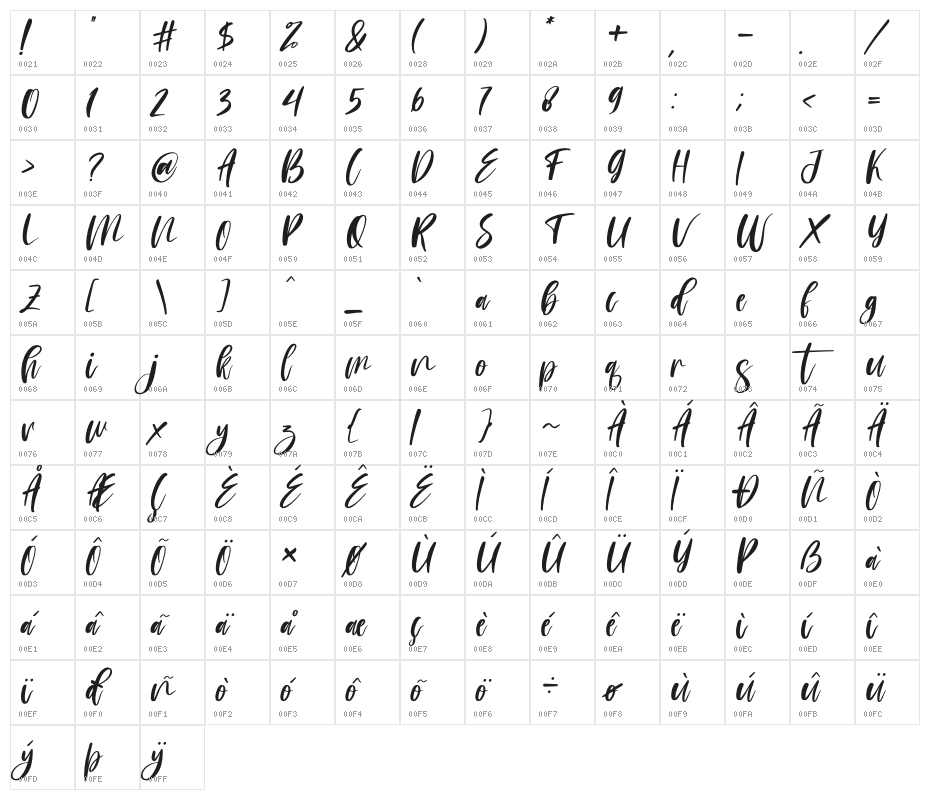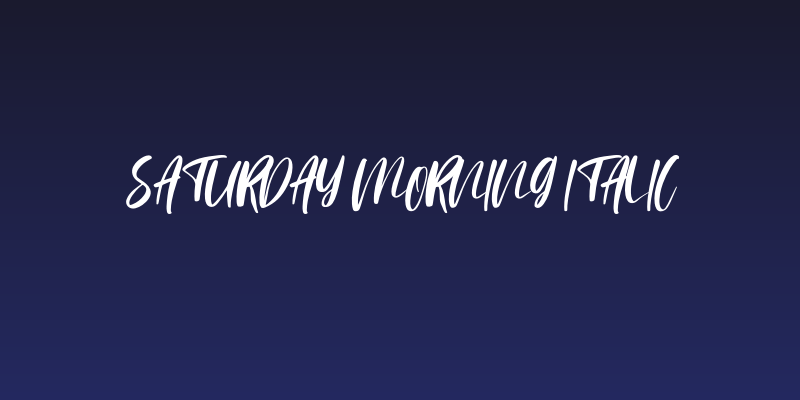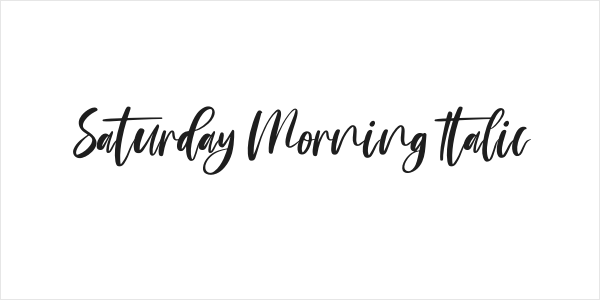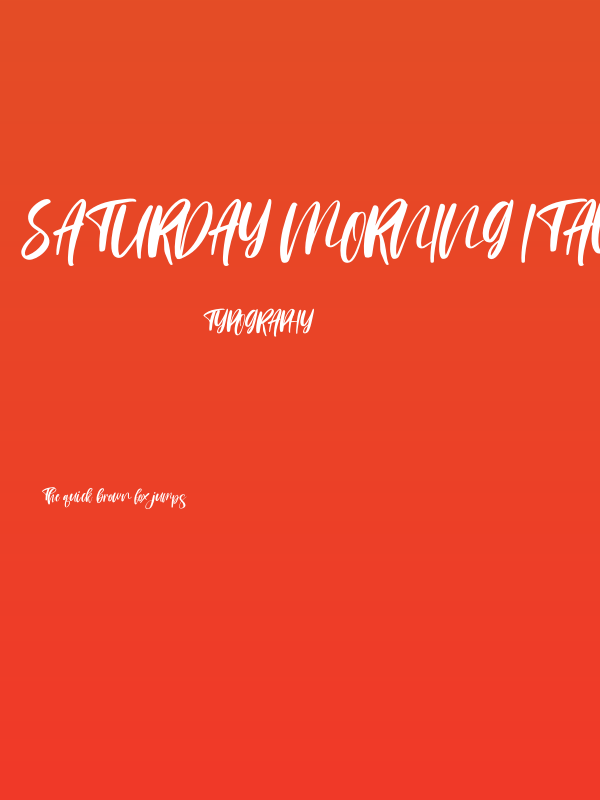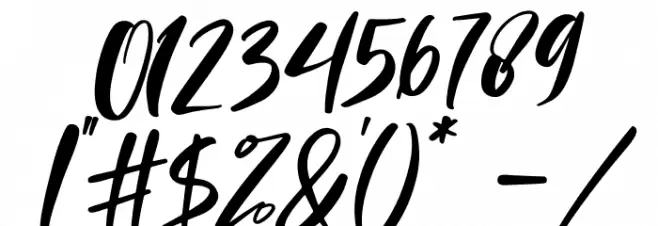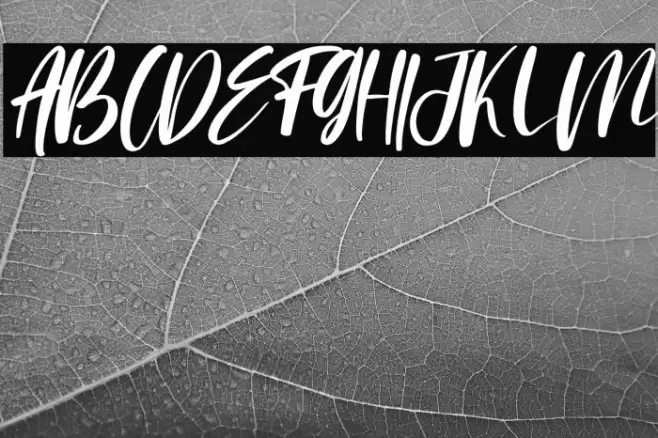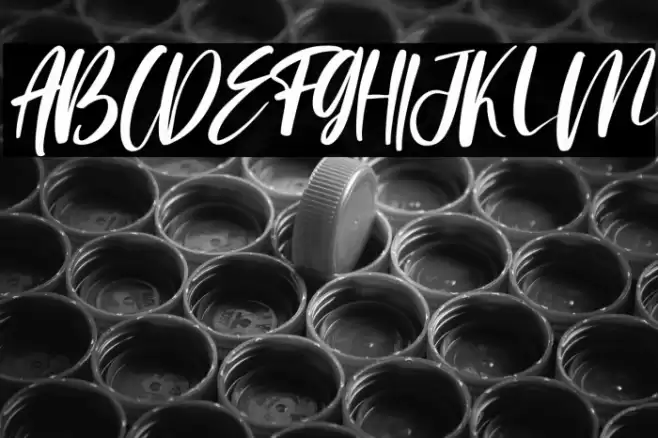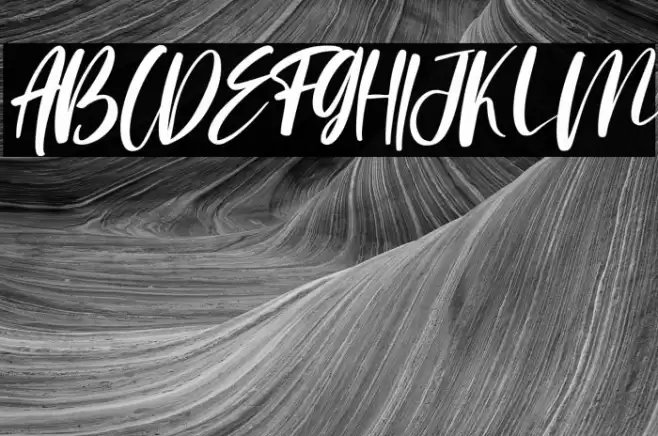
Saturday Morning Italic Font
This font exudes a lively and dynamic energy with its bold, sweeping strokes and fluid, cursive style. The letters are characterized by their dramatic slant and expressive curves, creating a sense of movement and spontaneity. The uppercase and lowercase letters maintain a consistent style, with the uppercase being slightly more pronounced. The numerals and special characters follow the same energetic design, ensuring a cohesive look across all text elements. This font's playful and artistic nature makes it ideal for creative projects that require a personal touch.
| Proposed Projects | Ideal for greeting cards, invitations, branding, and artistic posters. |